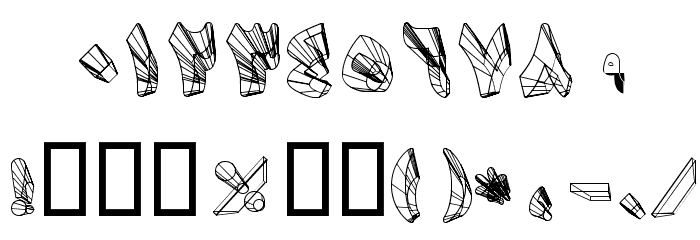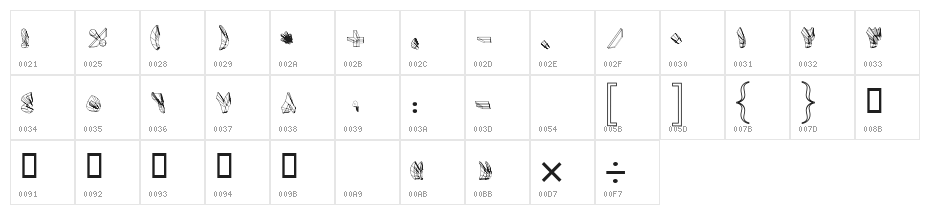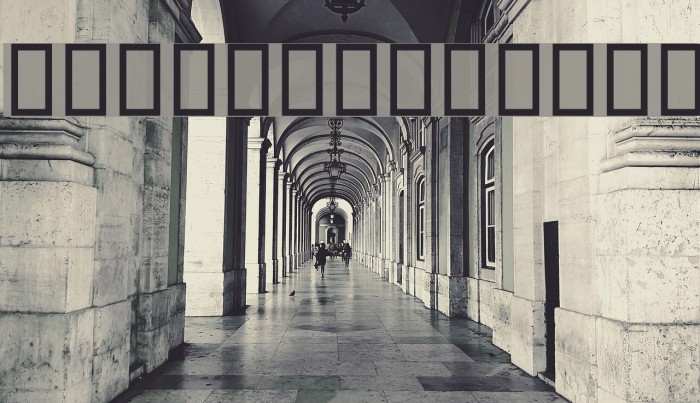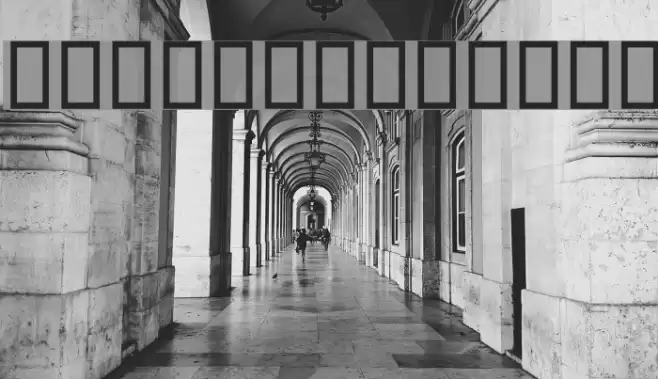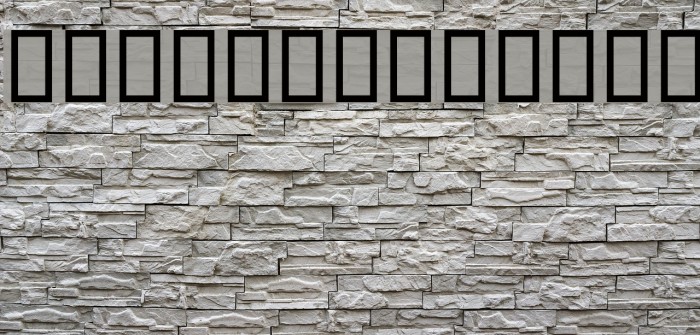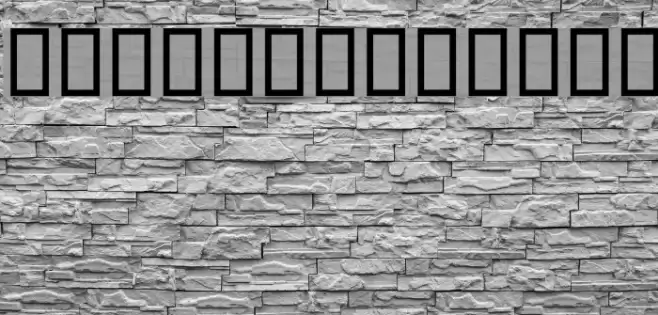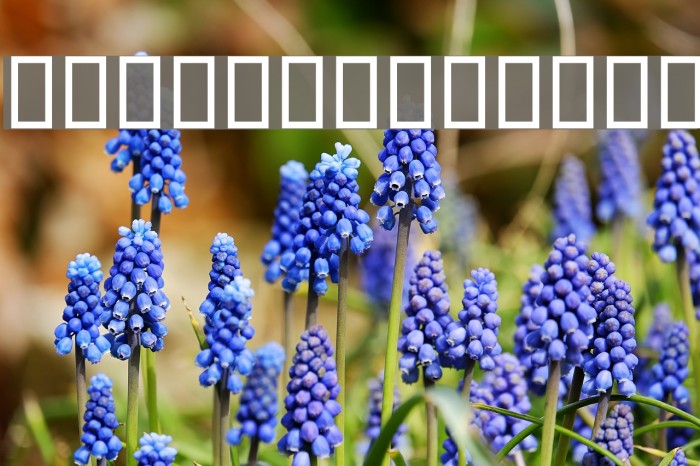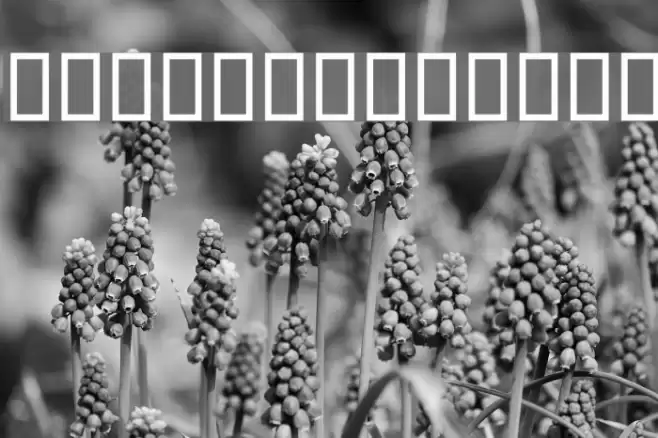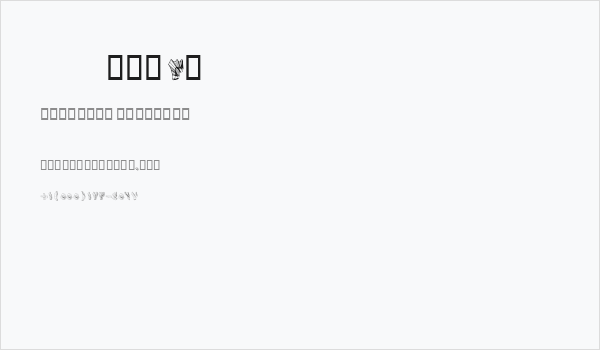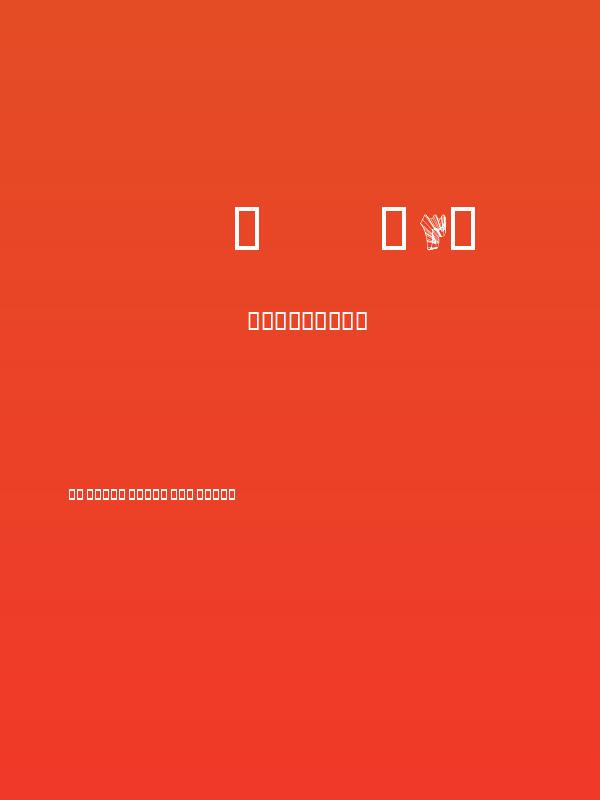
Titr 3D Font
Titr 3D Description
This font features a striking 3D geometric design with a modern and abstract aesthetic. Each character is constructed with intricate wireframe structures, giving it a unique and futuristic appearance. The letters are bold and angular, creating a sense of depth and dimension. This style is particularly eye-catching and would stand out in any design project. The font's complexity and artistic flair make it suitable for creative and innovative uses, where a bold statement is desired.
| Overall Style | Modern, Futuristic |
| Proposed Projects | Ideal for use in digital art, futuristic branding, tech-related projects, and creative posters. |